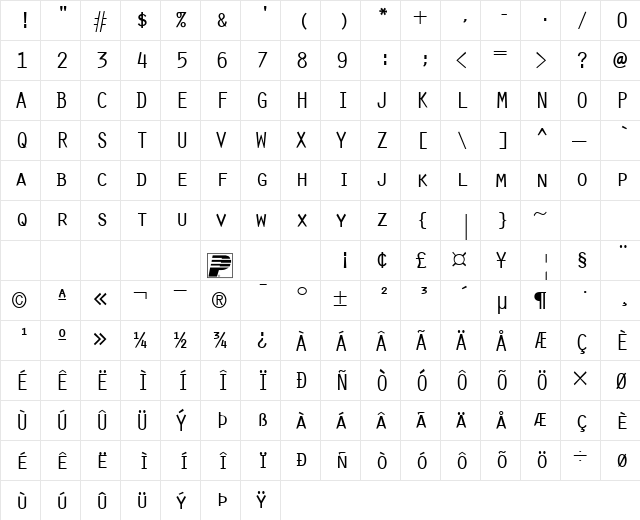
PT Regula Caps Normal
Design Context for PT Regula Caps Typeface
PT Regula Caps offers clean, dependable letterforms without strong stylistic allegiance, making it a practical choice for designers who need flexibility.